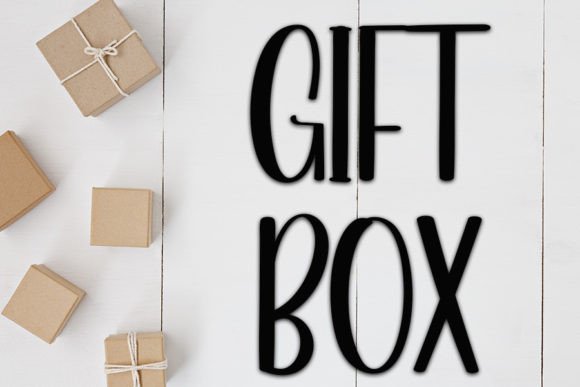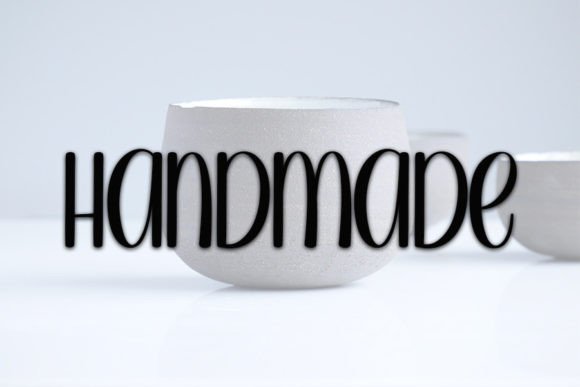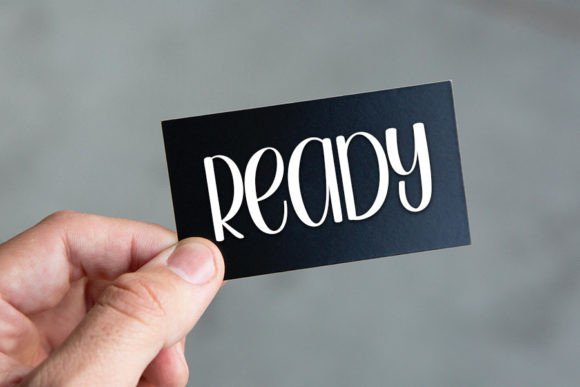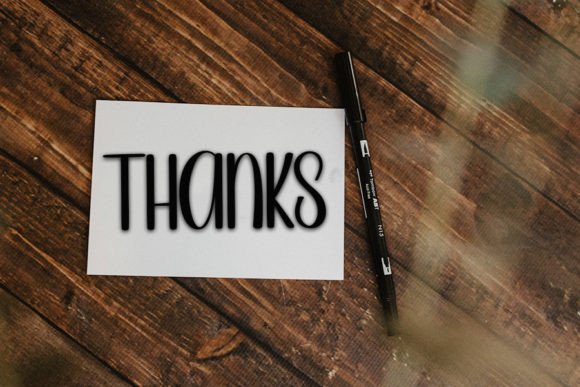
Cactus Font: Elevate Your Designs with Elegance and Timeless Style
Are you on the hunt for a font that exudes elegance and sophistication? Look no further than the Cactus Font, a stunning handwritten font that is sure to capture your heart. With its unique blend of refinement and playfulness, Cactus is the perfect addition to any design project. In this article, we’ll dive into the world of Cactus Font, exploring its features, benefits, and uses, as well as provide tips and inspiration for designers and crafters.
The Charm of Cactus Font
Cactus Font is a beautifully crafted handwritten font that boasts an elegant touch, making it perfect for a wide range of projects. Its incredibly distinct and timeless style is sure to set your designs apart from the rest. Whether you’re working on a logo, branding materials, or creative crafts, Cactus Font is the ideal choice. Its unique character and charm will add a touch of sophistication and whimsy to your work, making it a standout in any industry.
Key Features of Cactus Font
- Handwritten Elegance: Cactus Font is a carefully crafted handwritten font that exudes elegance and refinement.
- Unique Character: Its distinct and timeless style sets it apart from other fonts, making it perfect for designers and crafters looking for something special.
- Versatility: Cactus Font is suitable for a wide range of projects, from logos and branding materials to creative crafts and more.
- Easy to Read: Despite its elegant and refined nature, Cactus Font remains easy to read, making it perfect for body text and headlines.
Benefits of Using Cactus Font
So, why choose Cactus Font for your next project? Here are just a few benefits of using this beautiful font:
- Adds Elegance and Sophistication: Cactus Font brings a touch of refinement and elegance to any design, making it perfect for high-end brands and luxury products.
- Creates a Lasting Impression: Its unique character and charm make it a standout in any industry, ensuring your designs leave a lasting impression on your audience.
- Versatile and Adaptable: Cactus Font can be used in a variety of contexts, from digital designs to print materials, making it a versatile addition to your font library.
Inspiration and Ideas for Designers and Crafters
Now that you’re familiar with the charm and benefits of Cactus Font, let’s explore some inspiration and ideas for designers and crafters:
- Logo Design: Use Cactus Font to create a stunning logo that showcases your brand’s personality and style.
- Branding Materials: Elevate your branding materials, such as business cards, brochures, and letterheads, with the elegance and sophistication of Cactus Font.
- Creative Crafts: Add a touch of whimsy and charm to your creative crafts, such as handmade cards, gift tags, and scrapbooking projects.
- Digital Designs: Use Cactus Font in your digital designs, such as social media graphics, blog posts, and website headers, to add a touch of elegance and refinement.
Tips for Using Cactus Font
To get the most out of Cactus Font, here are some tips to keep in mind:
- Experiment with Colors: Pair Cactus Font with a range of colors to create stunning designs that showcase its elegance and charm.
- Mix and Match: Combine Cactus Font with other fonts to create unique and visually appealing designs.
- Pay Attention to Spacing: Adjust the spacing and kerning of Cactus Font to ensure it looks its best in your designs.
In conclusion, Cactus Font is a beautiful and elegant handwritten font that is perfect for designers and crafters looking to add a touch of sophistication and whimsy to their projects. With its unique character, versatility, and ease of use, Cactus Font is sure to become a staple in your font library. So why wait? Fall in love with Cactus Font and use it to create spectacular designs that showcase your creativity and style!